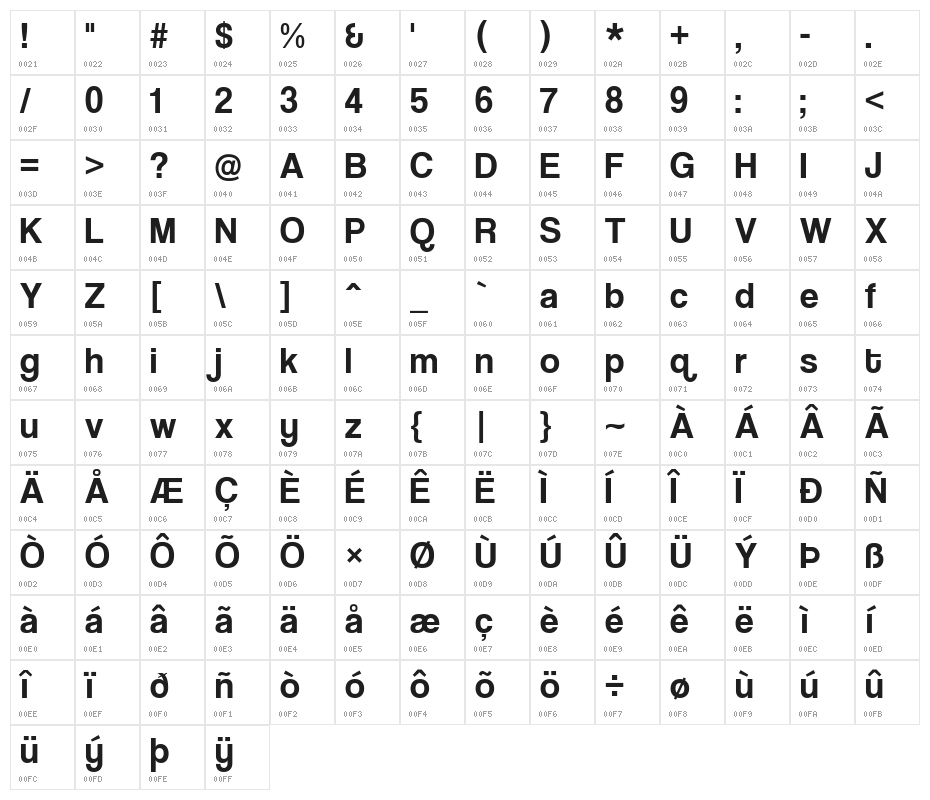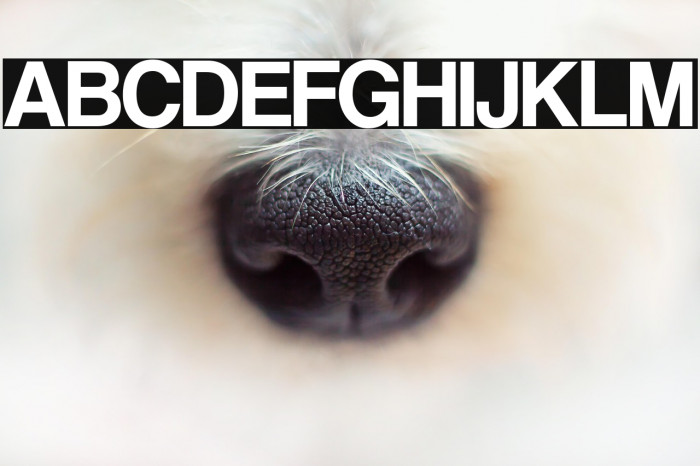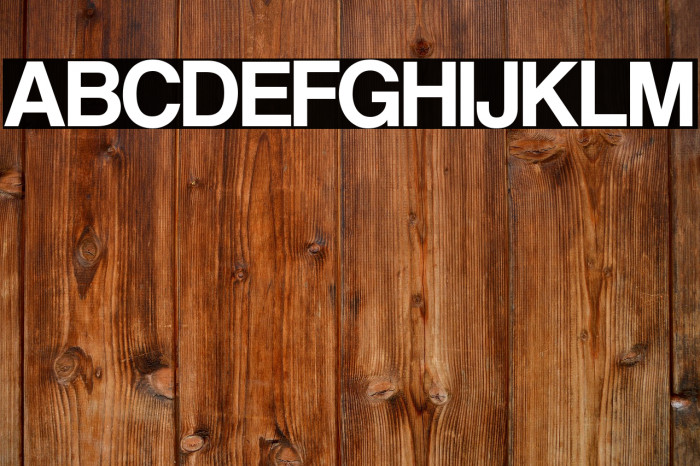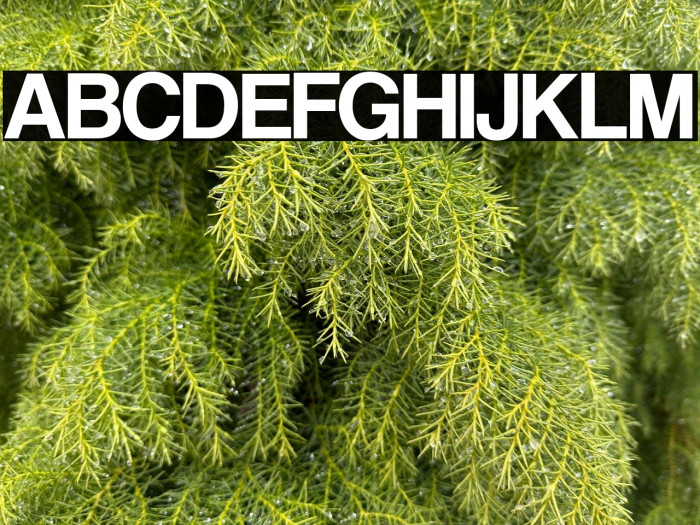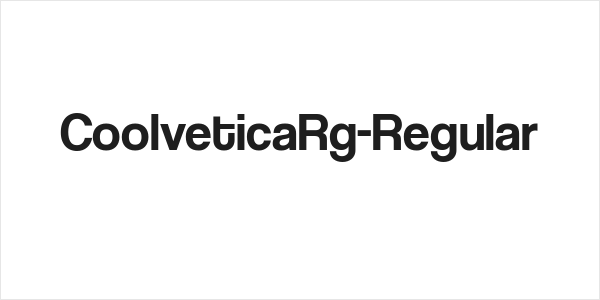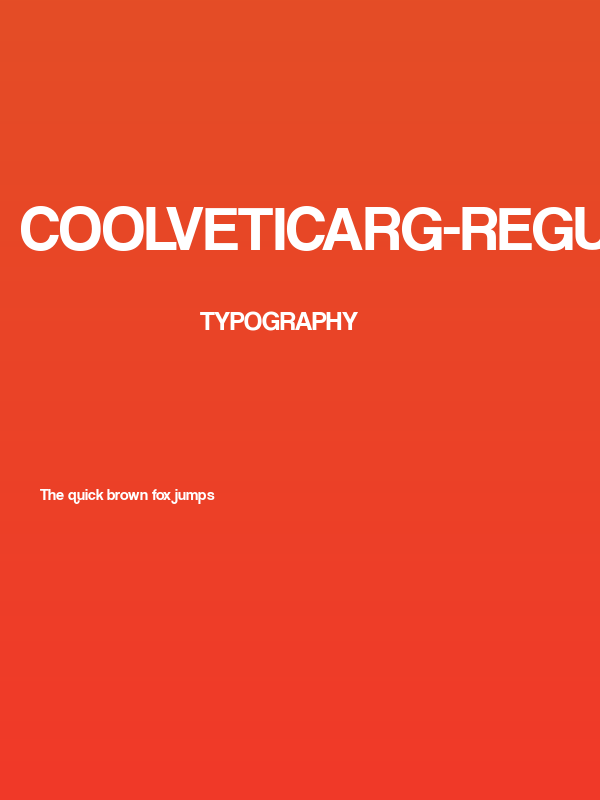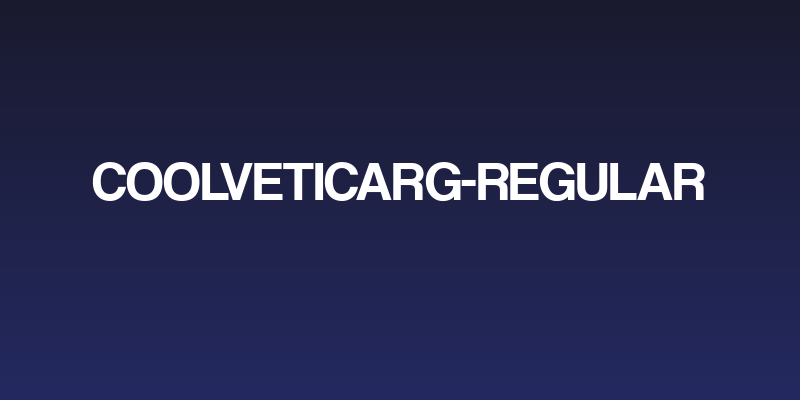
CoolveticaRg-Regular Font
CoolveticaRg-Regular Description
This font features a clean and modern sans-serif style with smooth, rounded edges and a uniform stroke width. The characters are bold and have a strong presence, making them highly legible and impactful. The uppercase and lowercase letters maintain a consistent design, with a slightly condensed appearance that enhances readability. The numerals and special characters are well-integrated, matching the overall aesthetic of the font. Its simplicity and clarity make it versatile for various design applications.
| Proposed Projects | Ideal for branding, advertising, headlines, and digital media where a strong, modern look is desired. |